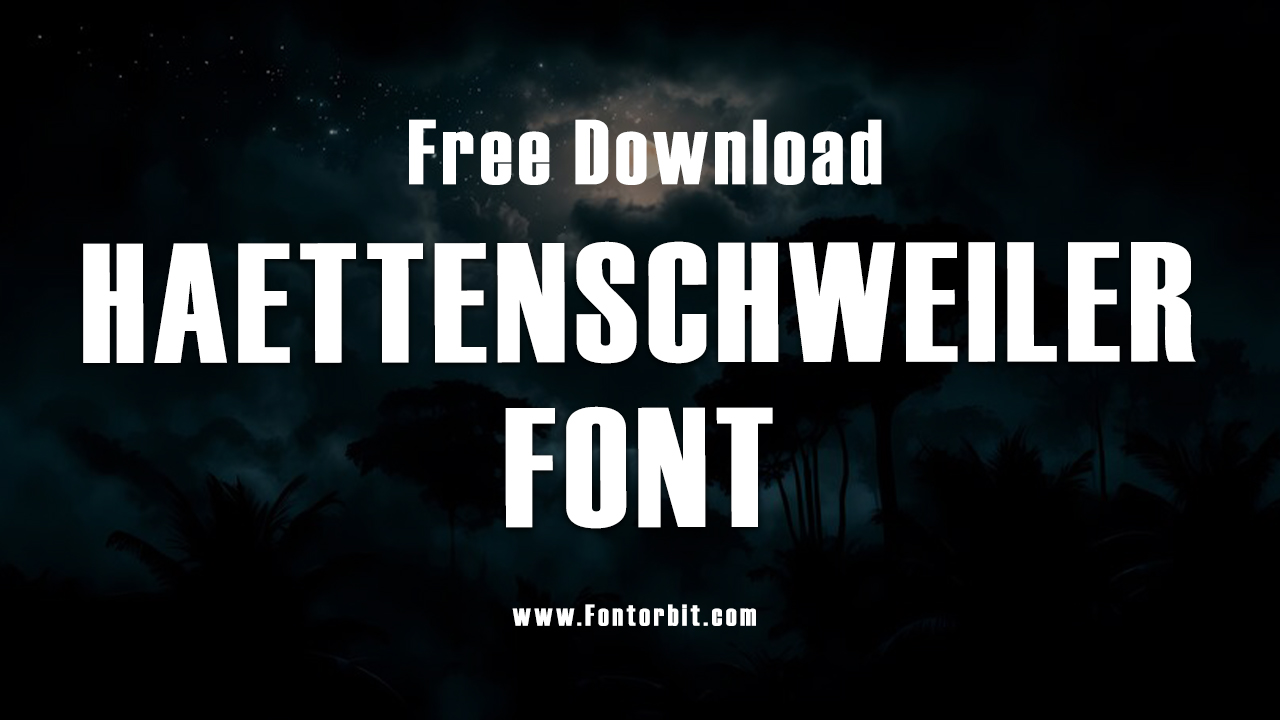
The Haettenschweiler Font Family
- Haettenschweiler Regular
Haettenschweiler’s design is characterized by its compact, tightly spaced letterforms, originally derived from the 1954 Schmalfette Grotesk by Walter Haettenschweiler. The modern version, digitized by Eraman Ltd. and Monotype Imaging, maintains this bold, aggressive aesthetic.
Notable Uses Of This Font
Haettenschweiler’s distinctive, compact design is popular in contexts requiring bold, eye-catching text. You’ll find it in historical magazines, television branding, and various graphic design projects where strong, industrial aesthetics are needed.bThe bold and condensed nature of Haettenschweiler makes it suitable for projects where a strong visual impact is desired. It is often used in:
- Headlines and Titles: Effective for making strong statements in print and digital media.
- Magazine Layouts: Utilized in publications such as Twen.
- Television Branding: Seen in the Charlie Rose show.
- Book Covers: Its aggressive style enhances book titles and covers.
- Logos: Used in various branding applications, including Nottingham Forest’s logo.
Haettenschweiler Font exemplifies the bold, condensed grotesque style popular in the mid-20th century. While its legibility issues may make it unsuitable for all types of text, its strong visual impact makes it suitable for specific design contexts. Pair Haettenschweiler with simpler, more legible fonts for a balanced design approach.
1: Is Haettenschweiler Font Suitable For All Types Of Design Projects?
Haettenschweiler is best suited for bold headline text and display purposes. Due to its aggressive style, it may be less effective for body text.
2: What Makes Haettenschweiler Font Different From Other Bold Fonts?
Haettenschweiler is distinct for its condensed, industrial design, derived from Schmalfette Grotesk, which gives it a unique, impactful appearance.
3: What Are The Popular Uses Of Haettenschweiler Font?
Haettenschweiler is popular for magazine headlines, TV branding, book covers, and other graphic design projects requiring strong visual impact.
4: What Are The Design Principles Behind Haettenschweiler Font?
The design principles focus on boldness, compact spacing, and an industrial aesthetic, intended for maximum impact in headlines and display text.
5.How Does Haettenschweiler Font Perform In Different Languages?
Haettenschweiler excels in Latin-based languages with bold headlines, but may lack diacritics for extended Latin scripts and is unsuitable for non-Latin scripts.